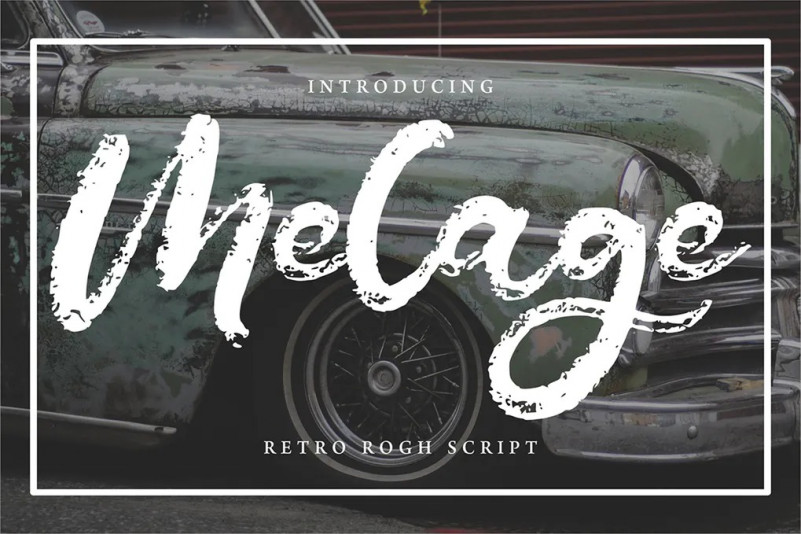
Melage Font
Melage | Retro Rogh Script Font with a calligraphy style, So beautiful on invitation like greeting cards, branding materials, business cards, quotes, posters, and more!